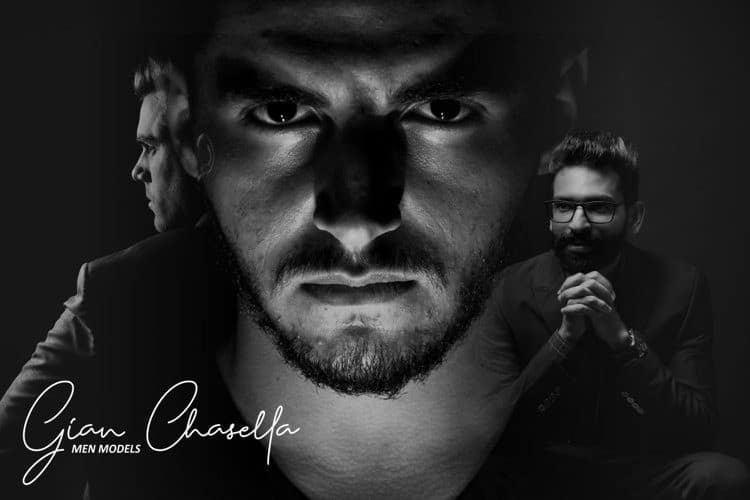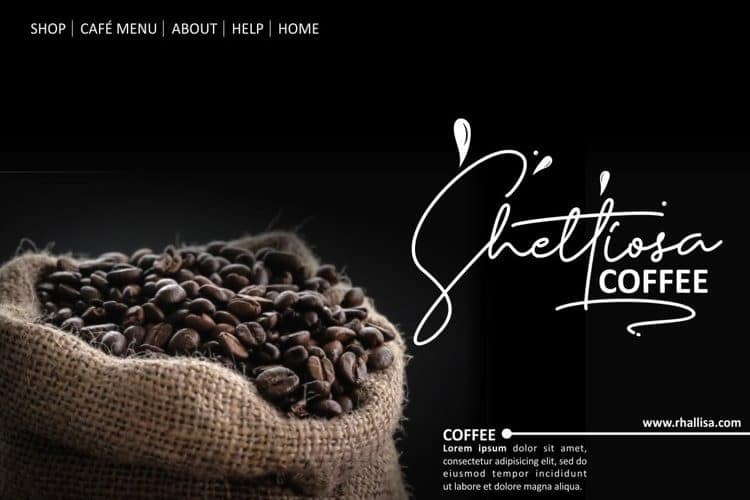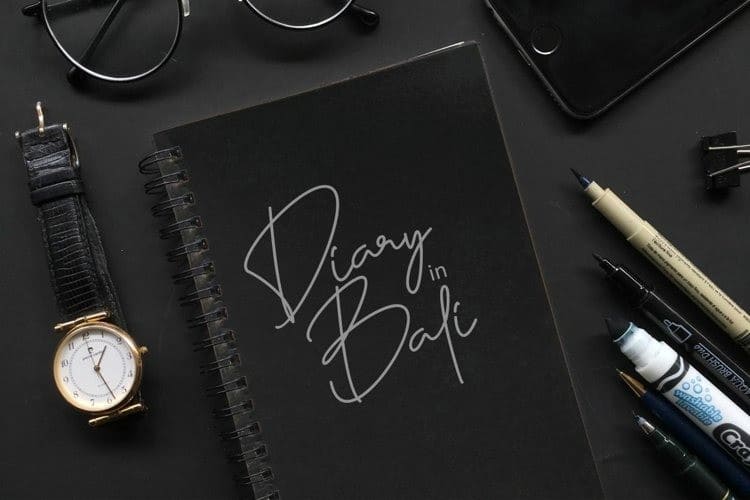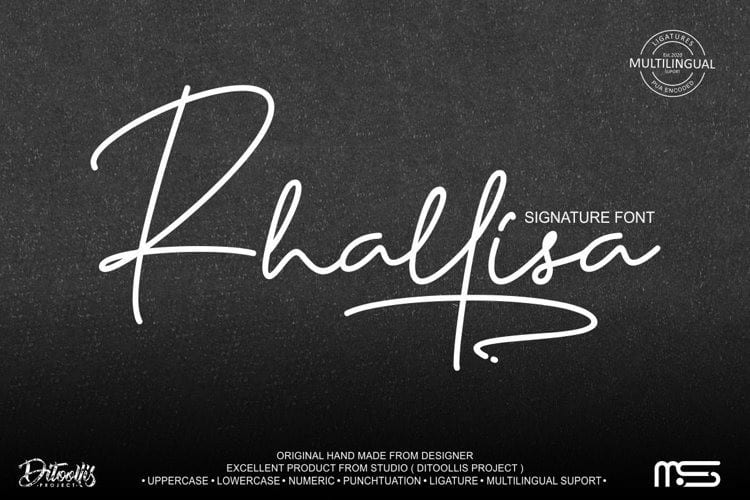
Rhallisa Handwritten Font is stylish script font inspired by the signature that makes writing cool and unique. It’s designed and shared by Ditoollis Project. This font is very modern, and is perfect for your design .This font is suitable for business cards, logos, covers, comics, invitations, etc.